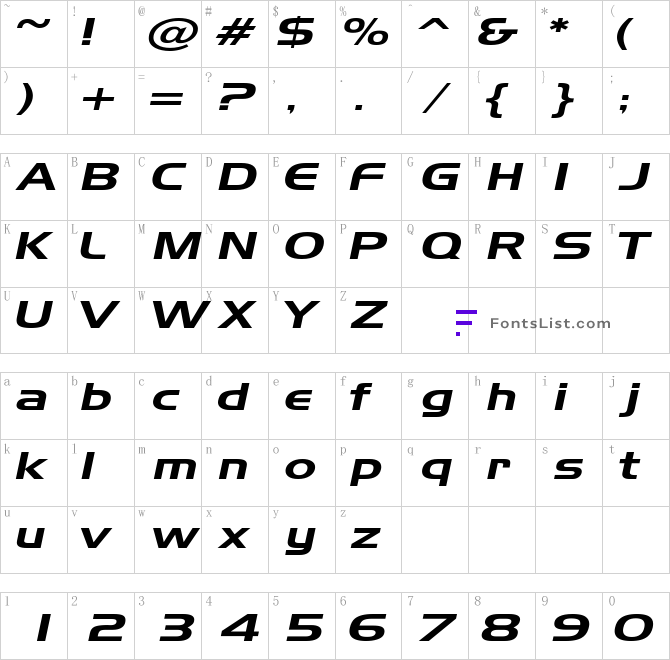
- Font Name:AeroExtended
AeroExtended-Italic1-.ttf is a very beautiful artistic font, AeroExtended-Italic1-.ttf is widely used in the design and printing of various books and pictures,AeroExtended-Italic1-.ttf has a strong visual impact,AeroExtended-Italic1-.ttf is a commonly used font in newspapers, magazines and books, and is used in posters, e-commerce Poster design, store design, logo design, font design and other fields.AeroExtended-Italic1-.